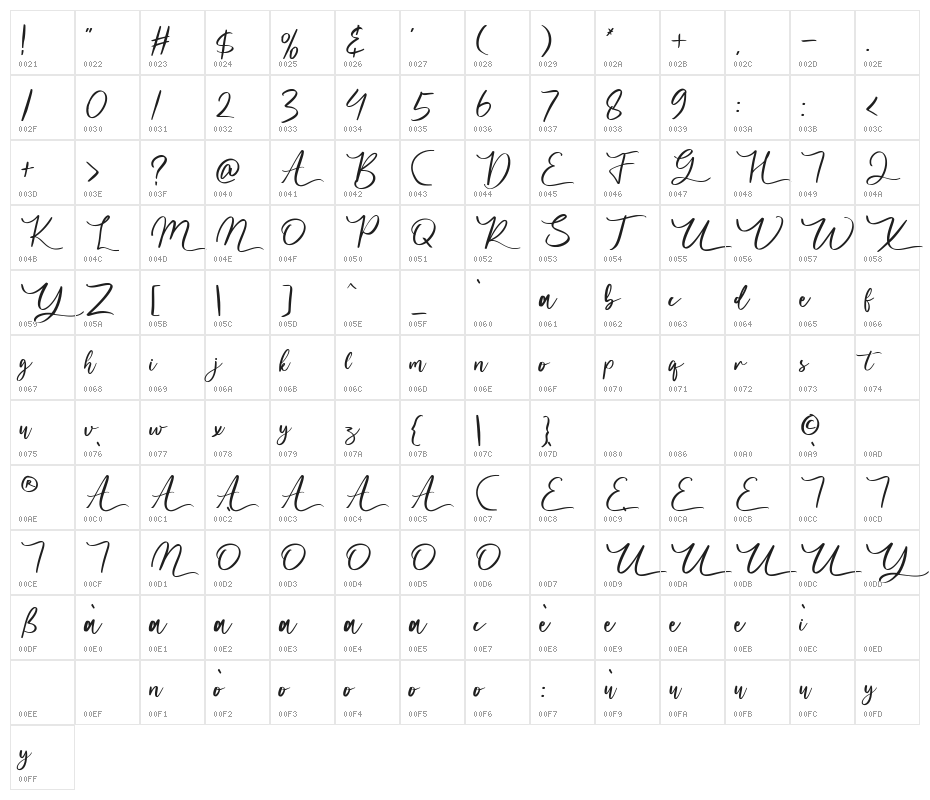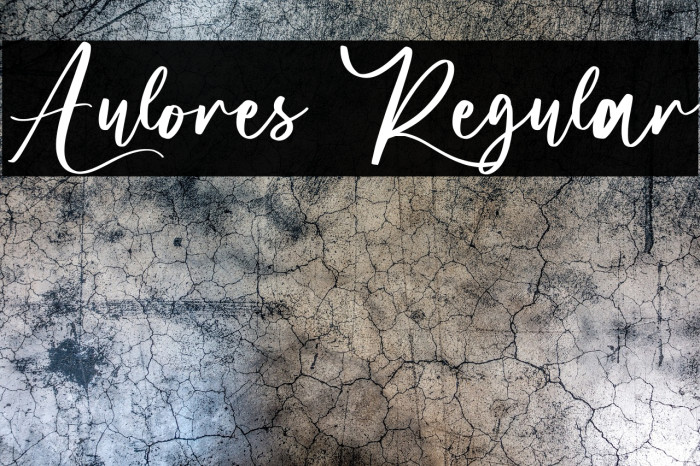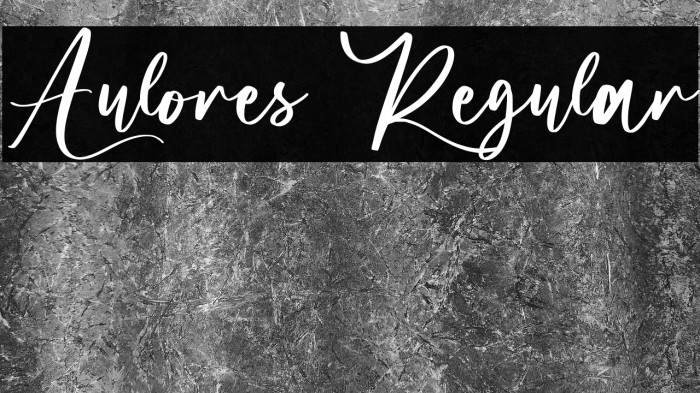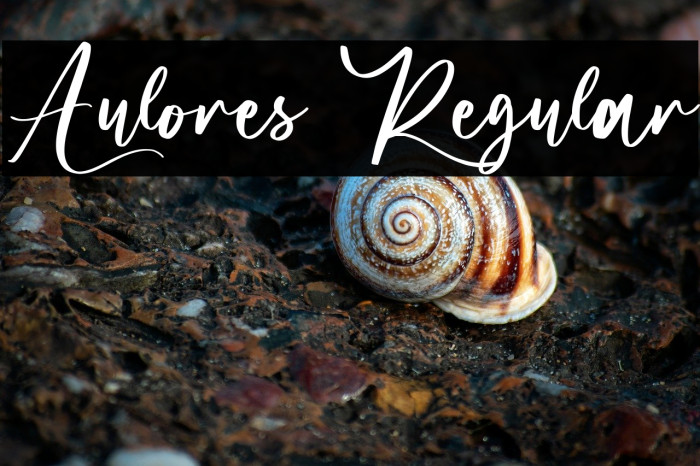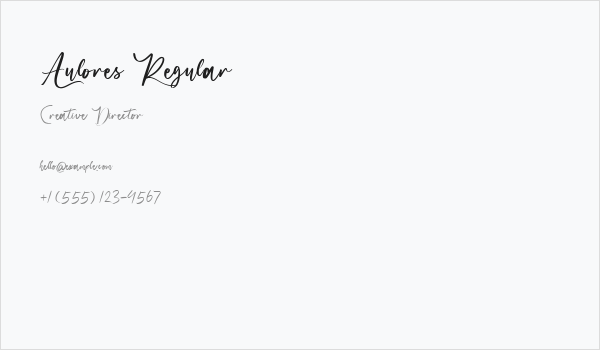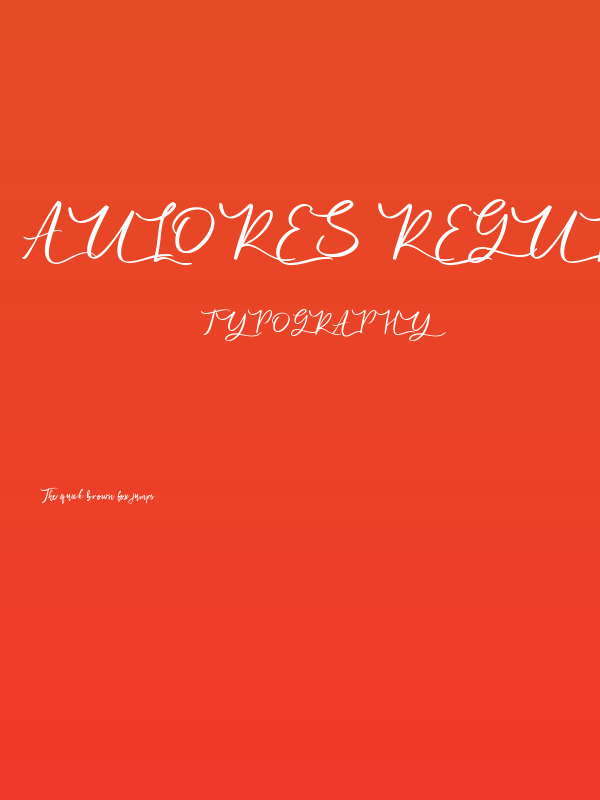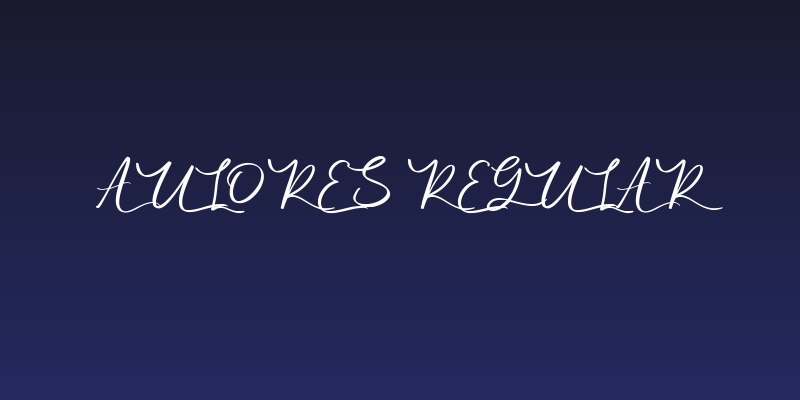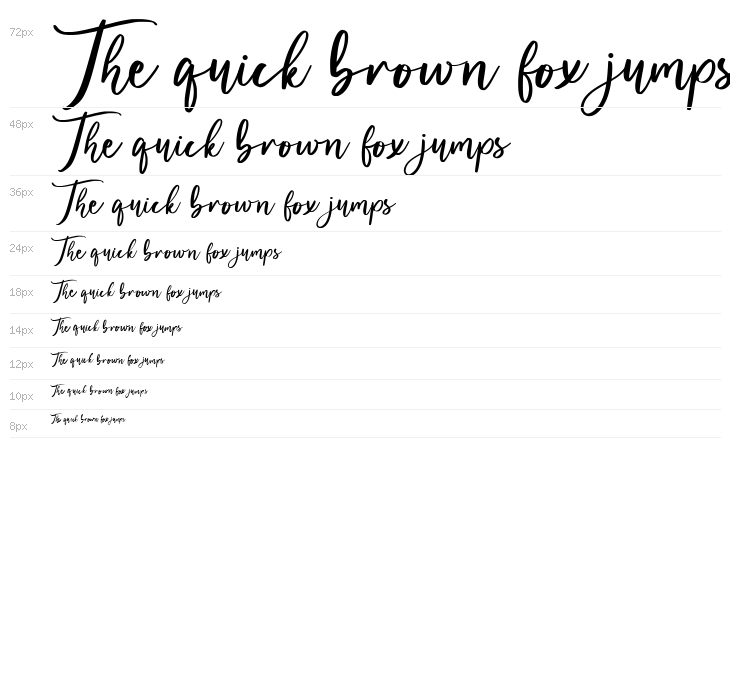
Aulores Regular Font
Aulores Regular Description
This font exhibits a flowing, cursive style with a modern twist. The uppercase letters are elegantly connected, giving a sense of continuity and fluidity. The lowercase letters maintain a consistent rhythm, with some characters featuring playful loops and swashes. The numerals are dynamic and slightly slanted, adding to the overall lively appearance. Special characters are designed with the same attention to detail, ensuring they blend seamlessly with the rest of the font. The strokes vary in thickness, providing a medium contrast that enhances readability while maintaining an artistic flair.